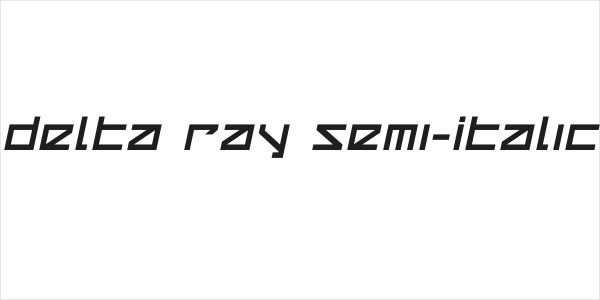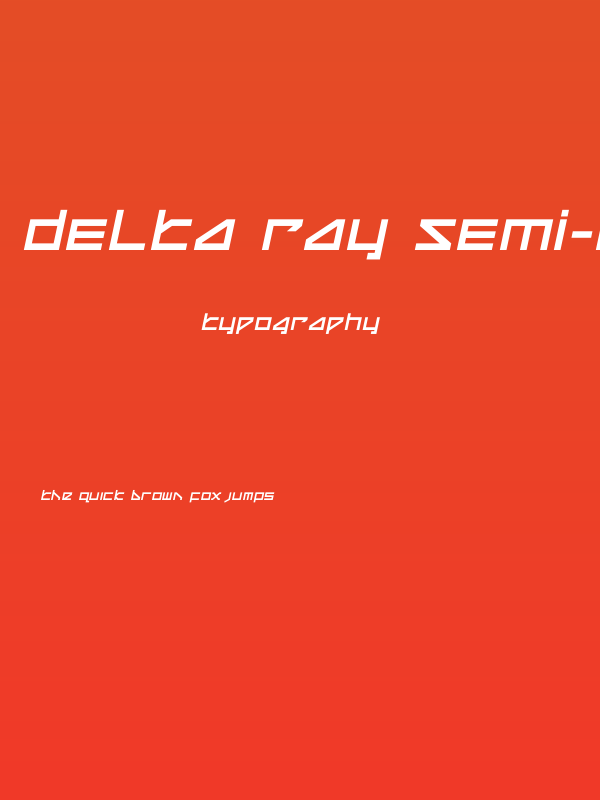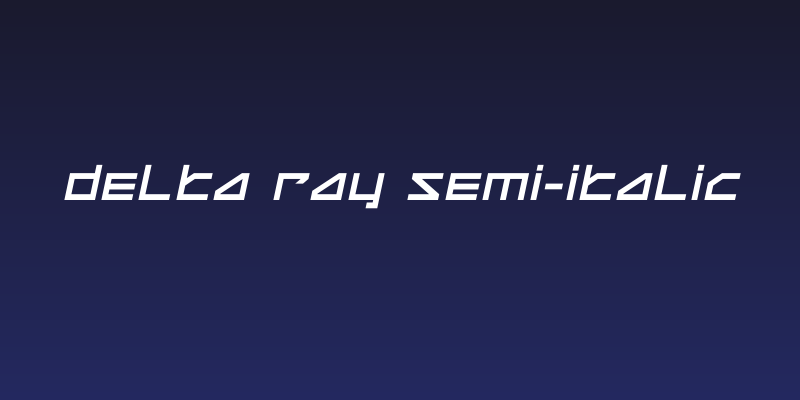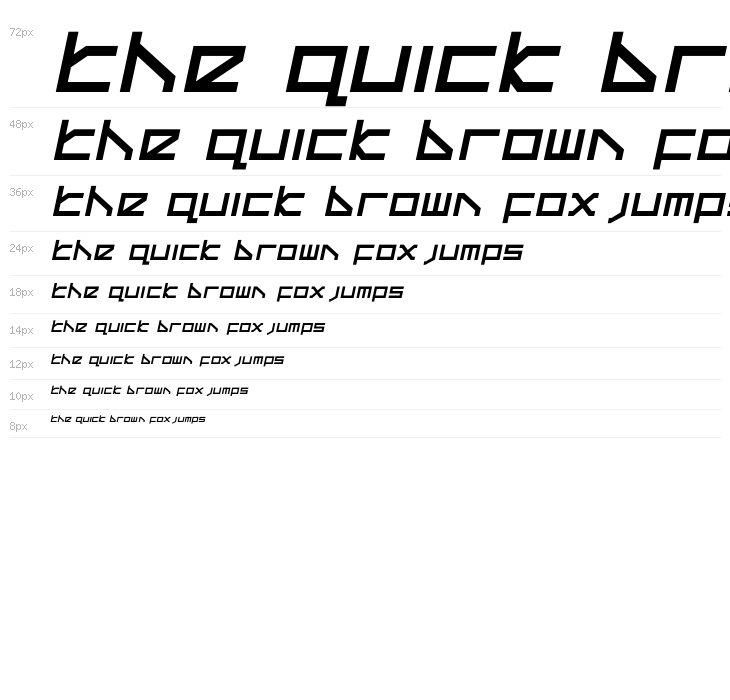
Delta Ray Semi-Italic Font
Delta Ray Semi-Italic Description
This font exhibits a futuristic and angular design, characterized by its sharp edges and geometric shapes. The letters are slanted, giving it a dynamic and forward-moving appearance. The uppercase and lowercase letters maintain a consistent style, with a unique approach to curves and lines that enhances its modern aesthetic. Numbers and special characters follow the same angular theme, ensuring uniformity across all glyphs. The font's distinct style makes it suitable for projects that require a contemporary and edgy look.
| Proposed Projects | Ideal for technology branding, sci-fi movie posters, video game titles, and modern graphic design projects. |